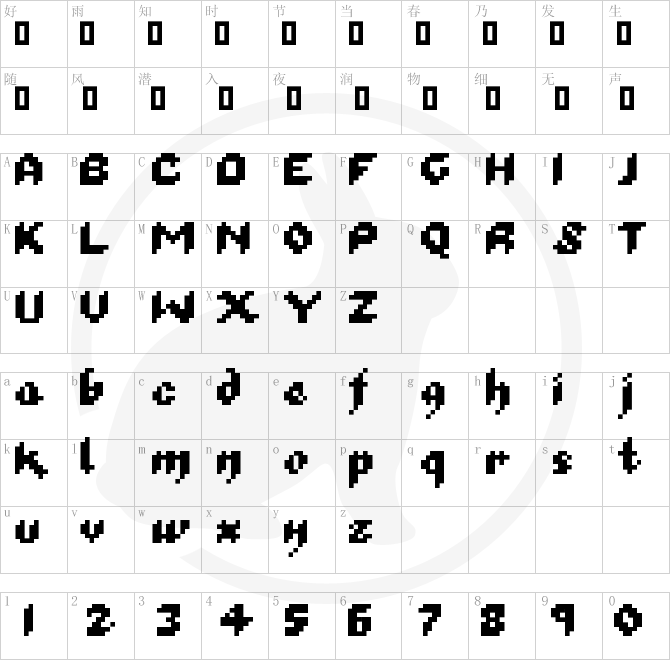
- Font Name:01Organix
01Organix.ttf is a very beautiful artistic font, 01Organix.ttf is widely used in the design and printing of various books and pictures,01Organix.ttf has a strong visual impact,01Organix.ttf is a commonly used font in newspapers, magazines and books, and is used in posters, e-commerce Poster design, store design, logo design, font design and other fields.01Organix.